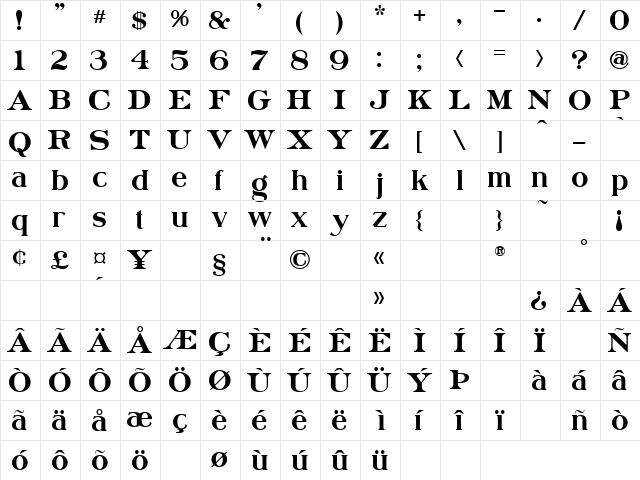
LHF Colonial Roman Regular
Design Context for LHF Colonial Roman Typeface
LHF Colonial Roman takes a measured approach to typography — its balanced proportions and neutral character make it a reliable workhorse for both digital and print work.